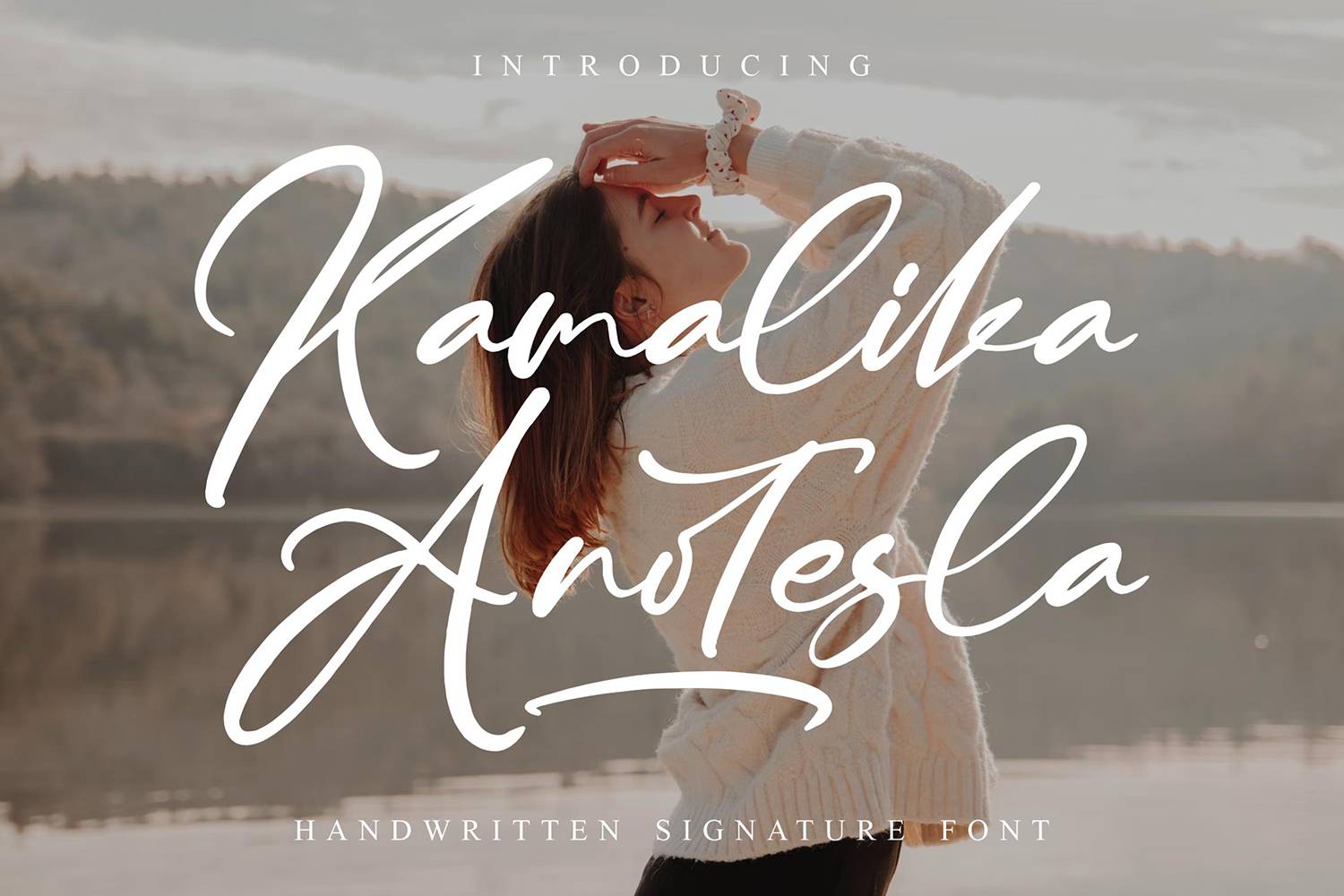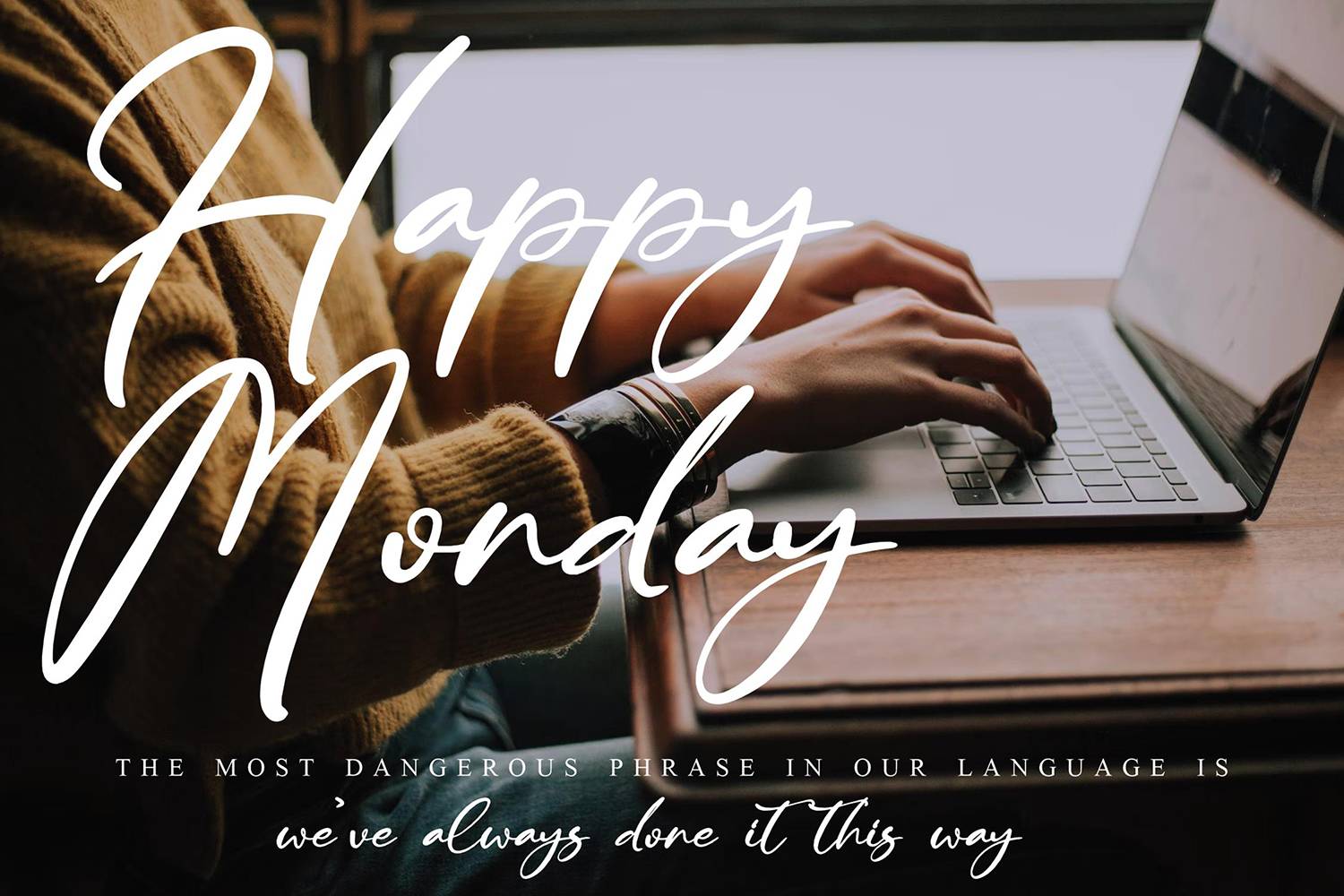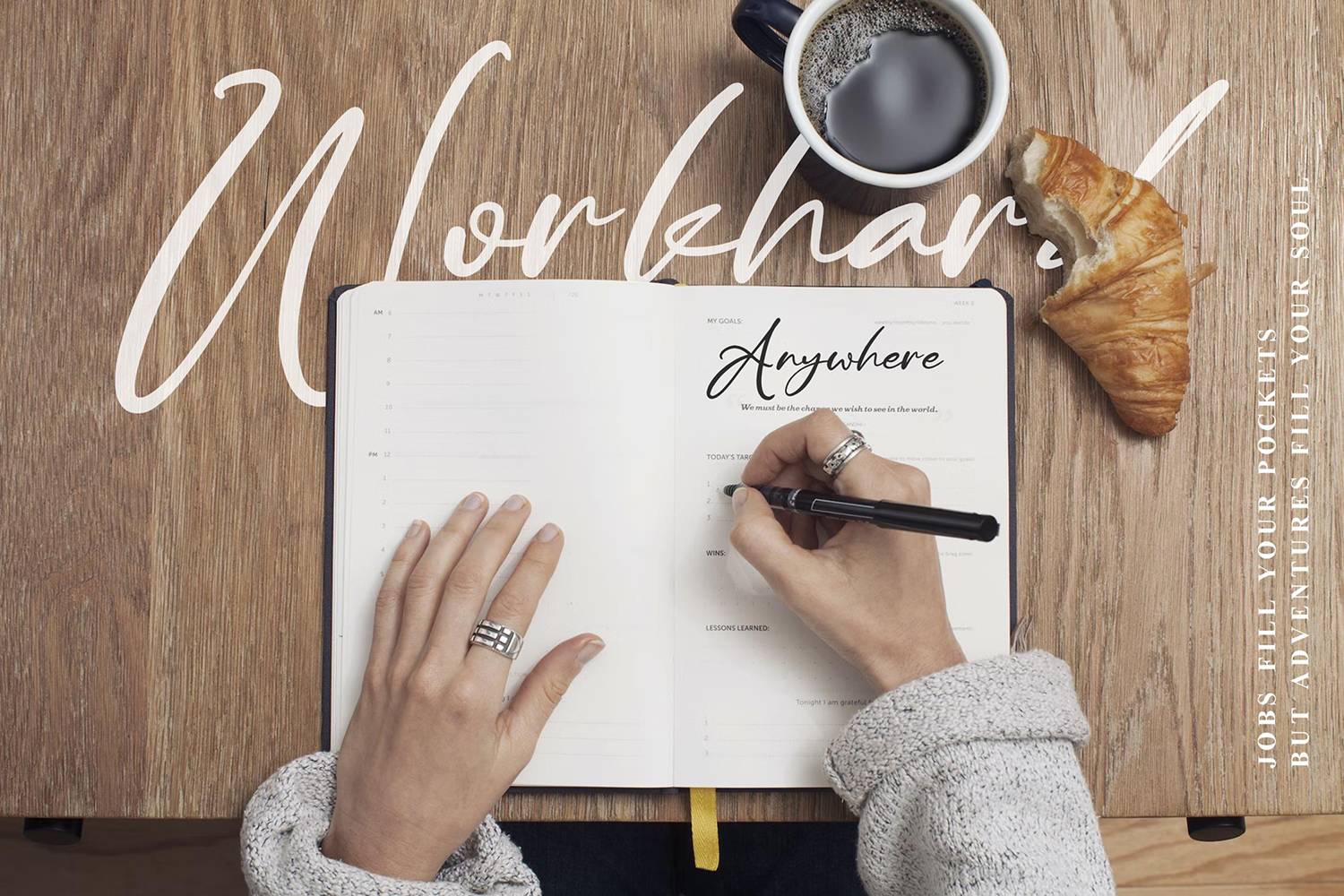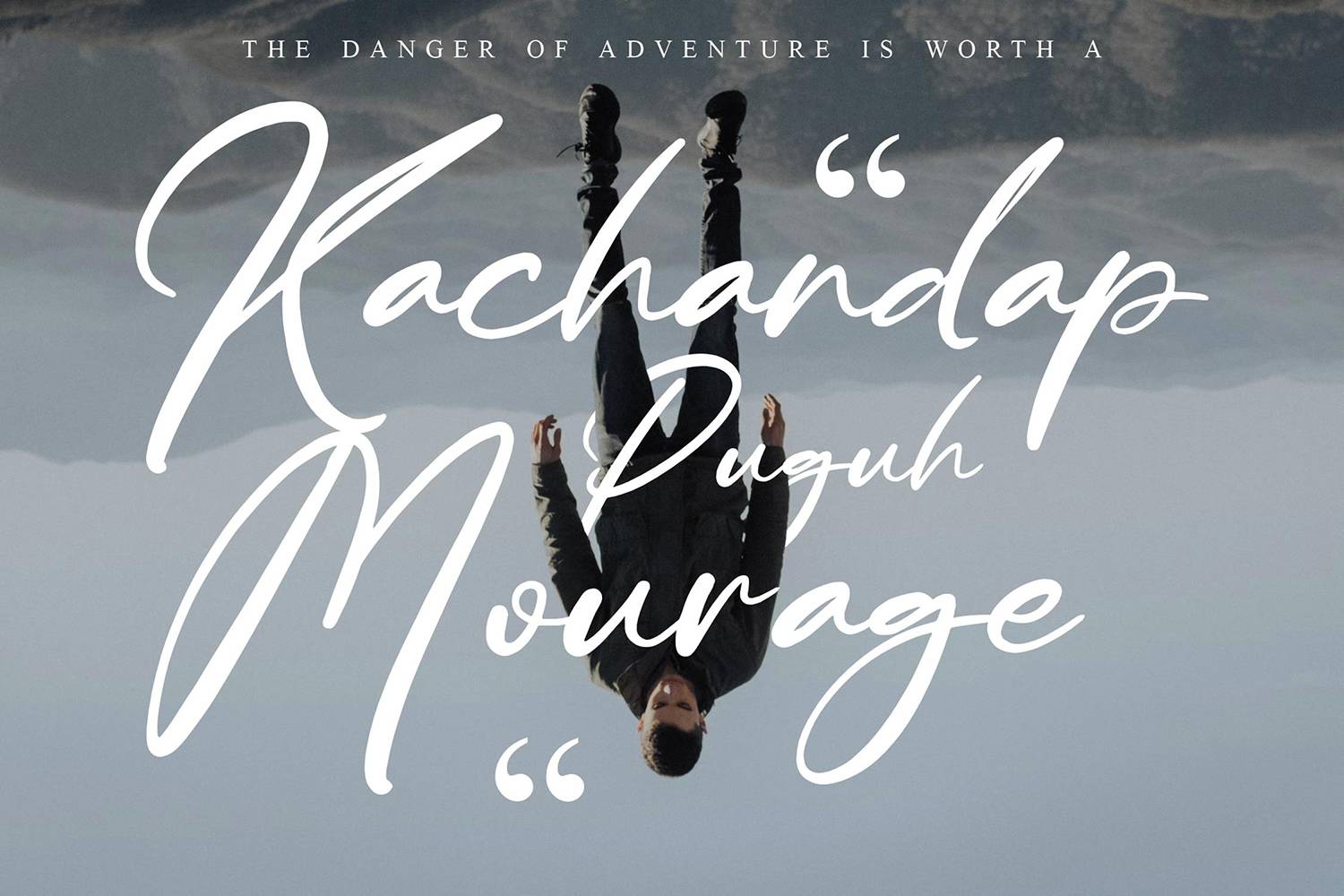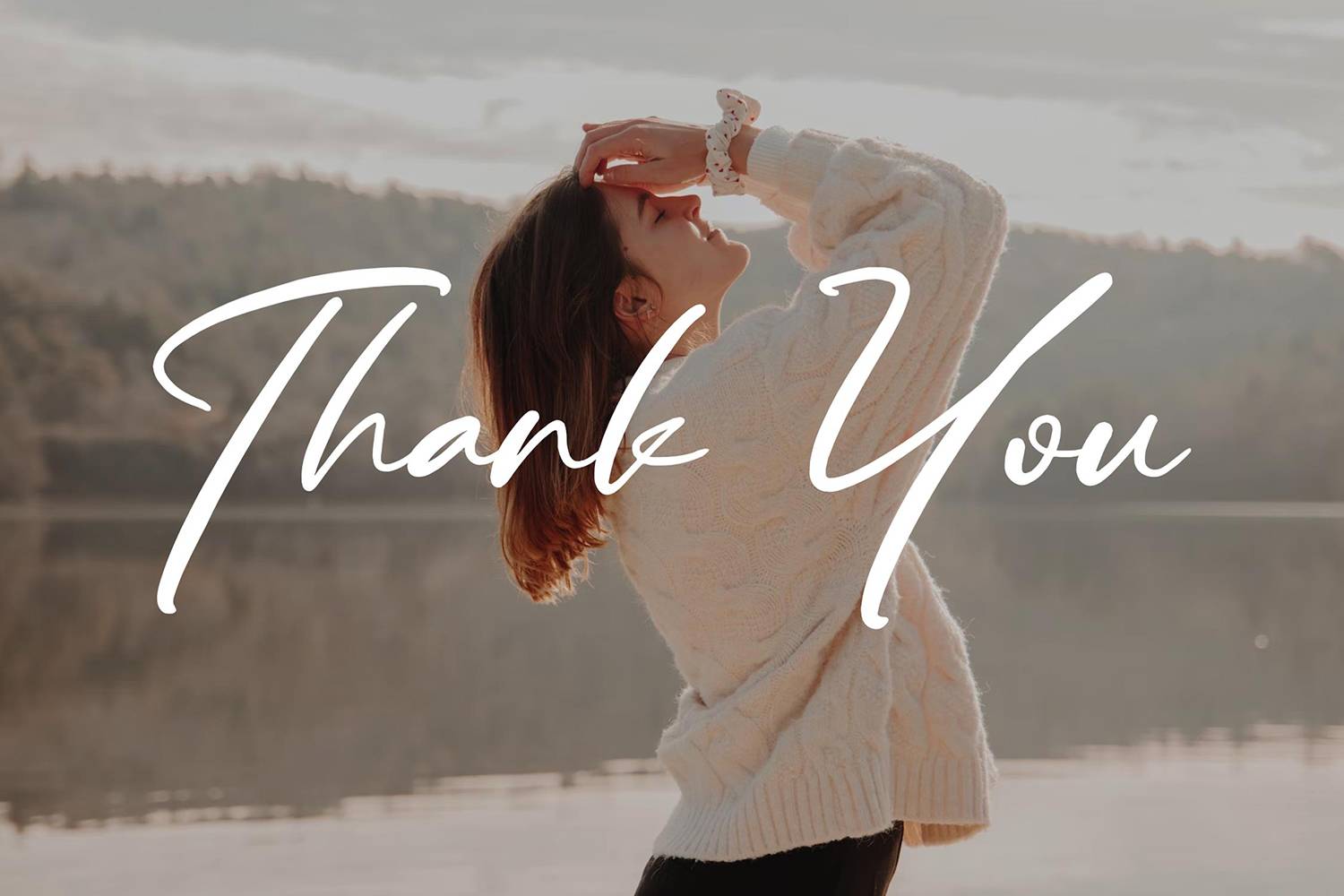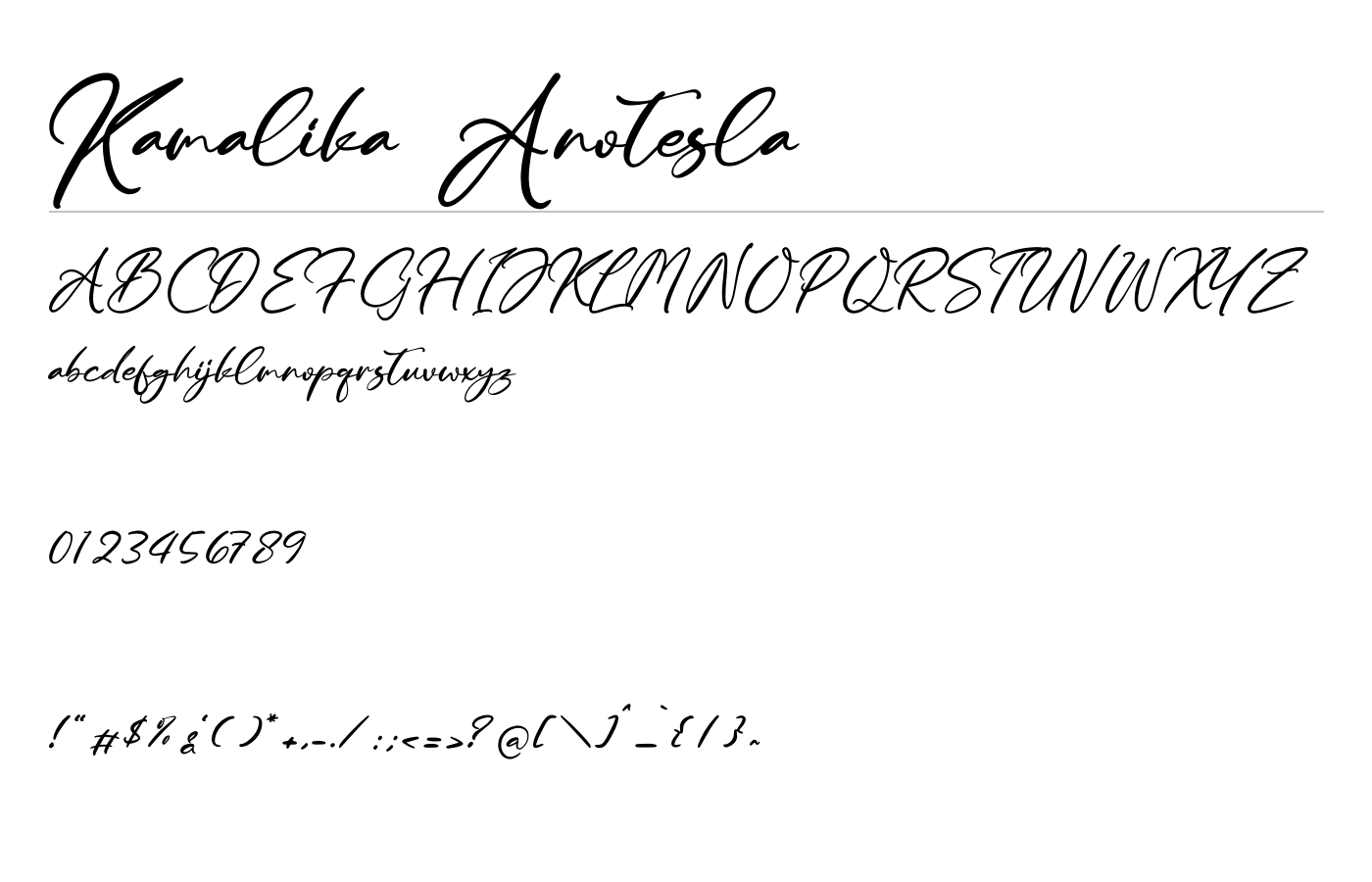
Kamalika Anotesla is an elegant script font with a smooth, flowing style that mimics natural handwriting. Its medium weight and delicate strokes convey a sophisticated yet approachable feel, making it ideal for invitations, branding, and elegant headlines where a personal, refined touch is desired. This font works well in fashion, beauty, and lifestyle projects that seek to blend grace with a modern handwritten charm.
Kamalika Anotesla Font
About Kamalika Anotesla Font